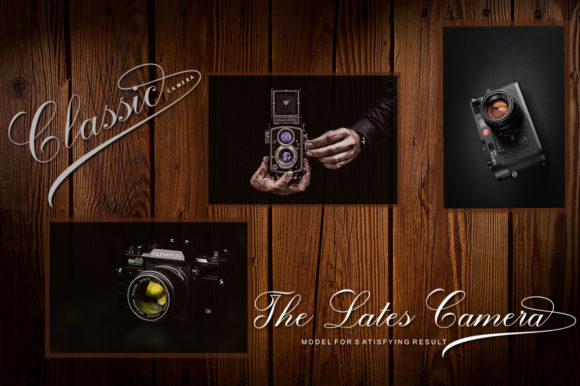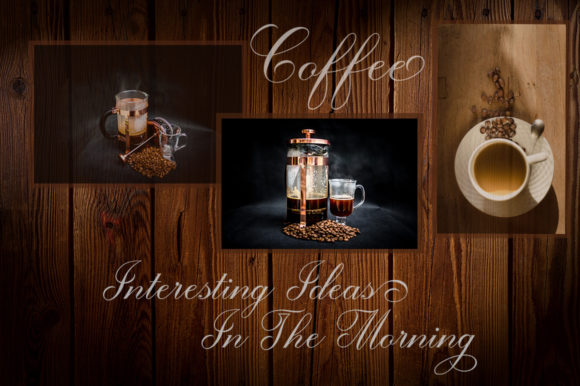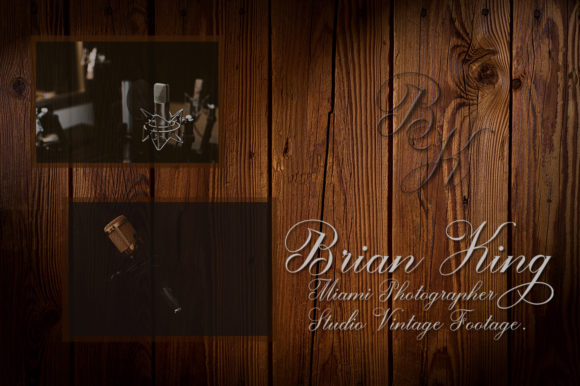
Introduction to Barbies Script Font
Imagine you’re working on a beautiful design project, pouring your heart and soul into it, and then you stumble upon the perfect font to bring it all together. For designers, finding that one special font can be a game-changer. And for those who’ve been searching, we’re excited to introduce you to the stunning Barbies Script Font, a classic calligraphy font that’s sure to elevate your creative project to new heights.
With its elegant, sweet, and perfect look, the Barbies Script Font is the ideal choice for logos, branding projects, product packaging, and more. Its high-quality design and beautiful swashes make it a valuable resource for designers looking to add a touch of sophistication to their work. And the best part? It’s available for free download, complete with a transparent background, making it easy to integrate into any design.
Key Features of Barbies Script Font
- High-quality design resource ideal for creative projects, offering a unique and elegant script font style.
- Unique characteristics include swashes, ligatures, and alternate characters, adding a touch of sophistication to any design project.
- Perfect for use in invitations, logos, branding materials, and other creative projects where a high-quality script font is desired.
Honest Review: Barbies Script Font
I recently stumbled upon the Barbies Script Font while searching for a unique design resource for a creative project. I was excited to try it out and see how it performs.
- ✨ High-quality design: The font has a beautiful, elegant feel to it, making it perfect for any design project.
- ⚠️ Limited character set: Unfortunately, the font only includes a limited set of characters, which may not be suitable for longer texts or documents.
- ⚠️ Not ideal for body text: While the font is beautiful, it’s not ideal for large blocks of body text, as it can be difficult to read.
Overall, I’m impressed with the Barbies Script Font. It’s a great design resource for creative projects, but it’s essential to keep its limitations in mind when choosing a font for your design.
Tips for Getting the Most Out of Barbies Script Font
For the best results, use the Barbies Script Font in a creative project where a high-quality, cursive font is needed. This font is perfect for wedding invitations, baby showers, or any other event where a elegant, handwritten look is desired. Experiment with different font sizes and colors to get the most out of the font.
The Barbies Script Font is commonly used for wedding invitations, baby shower invitations, and other events where a elegant, handwritten look is desired. It can also be used for social media graphics, blog posts, and other creative projects where a high-quality, cursive font is needed.